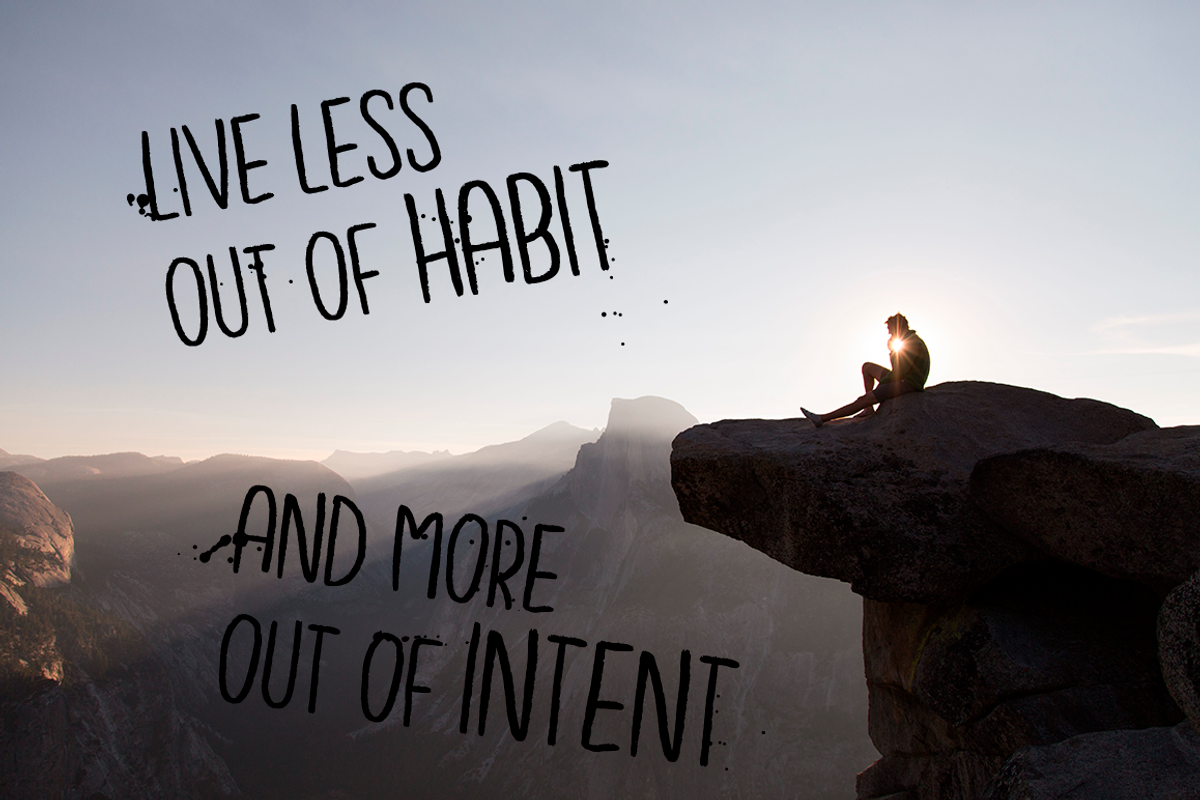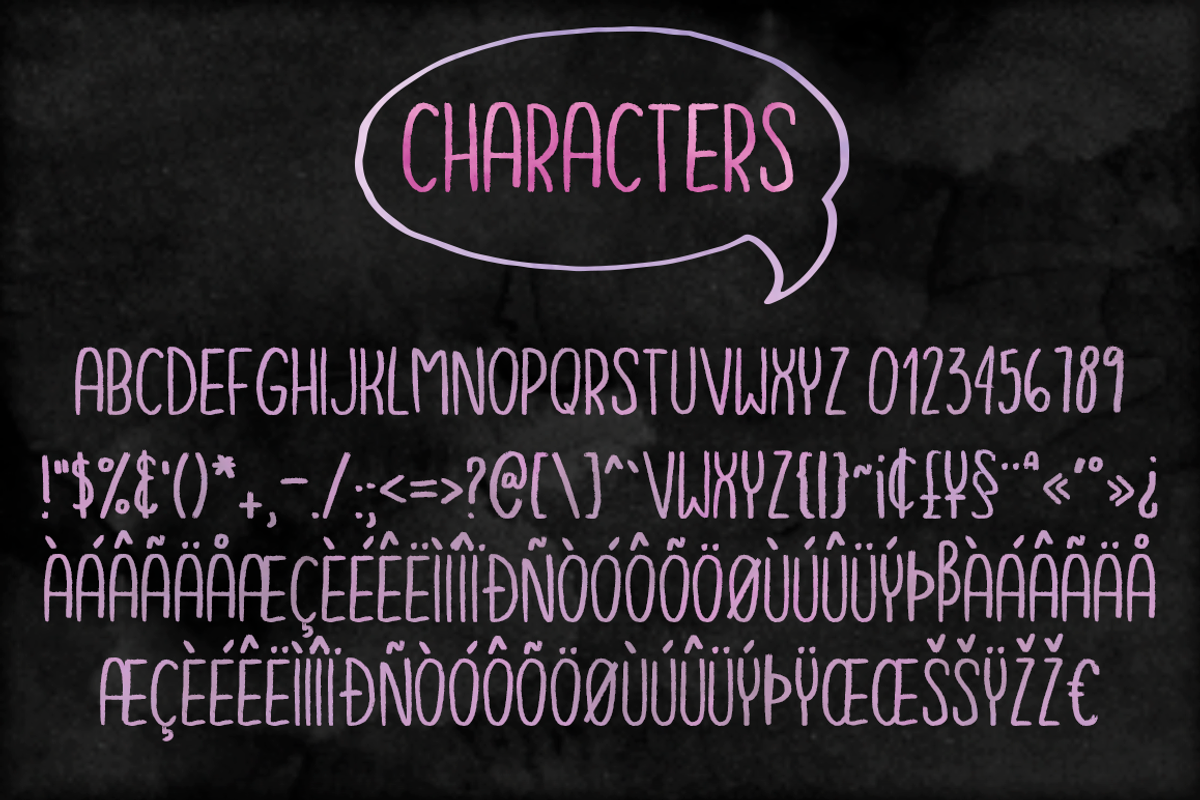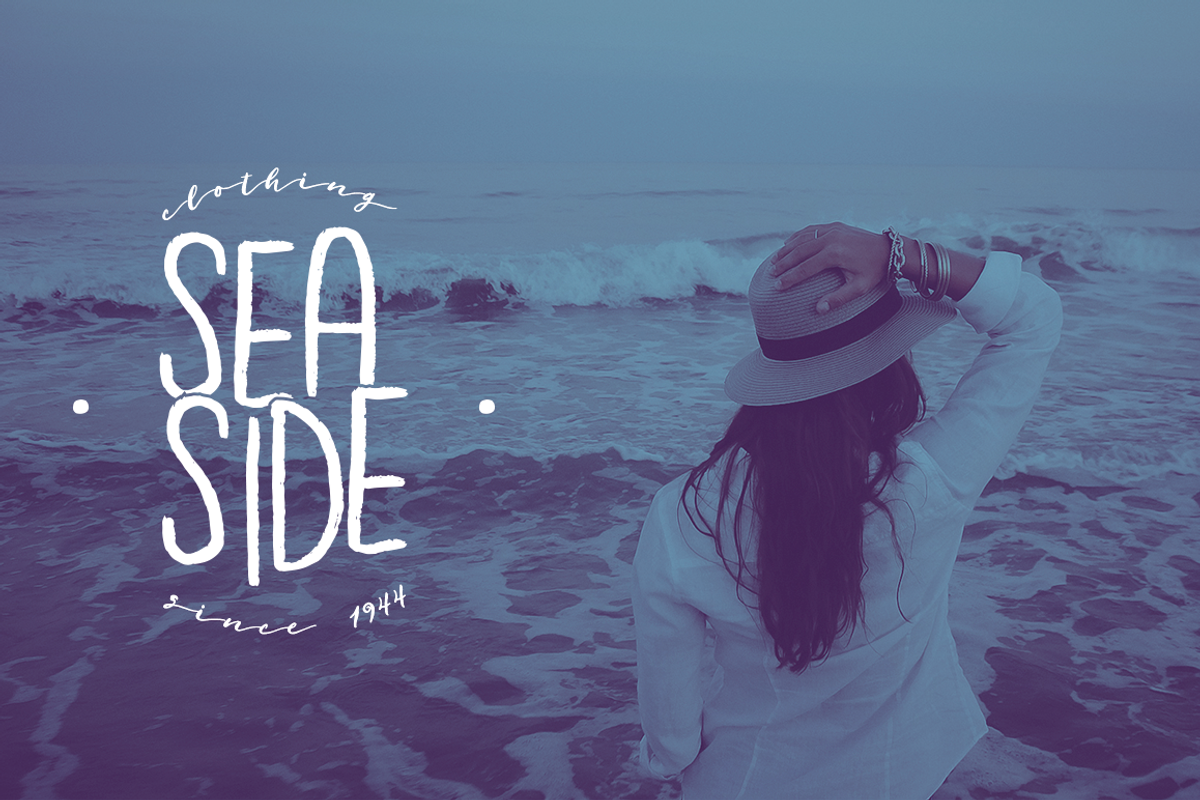
Black Magic Handmade Font
Black Magic Handmade Font by Caracol is a font selected for branding, posters, packaging, typography.
- Black Magic is an uppercase rustic, textured typeface.
- It has numbers, punctuation and international characters.
Why Black Magic Handmade Font is worth a look
Black Magic Handmade Font by Caracol fits naturally into Branding, posters, packaging, typography.